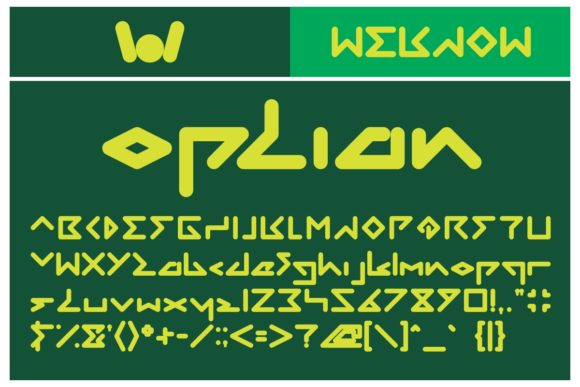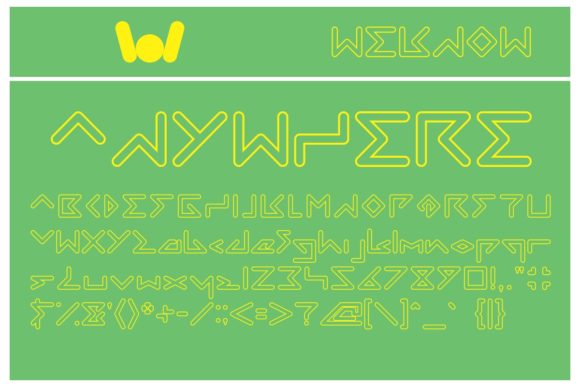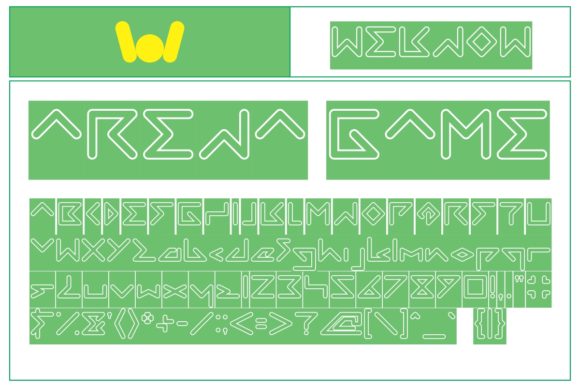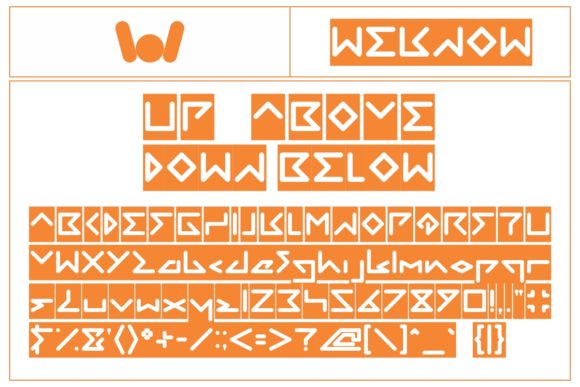
Introducing Direction Font: Elevate Your Designs with a Techno Display Font
In the world of design, fonts play a crucial role in conveying messages, expressing emotions, and creating visual identities. For designers, crafters, and social media enthusiasts, finding the perfect font can be a daunting task. However, if you’re looking for a techno display font that can take your designs to the next level, look no further than Direction Font. In this article, we’ll explore the features, benefits, and uses of Direction Font, and why it’s perfect for creating outstanding logos, eye-catching social media posts, and cute greeting cards.
What is Direction Font?
Direction Font is a techno display font designed to make a statement. Its sleek, modern design and futuristic feel make it perfect for designs that require a bold and edgy look. The font comes with a range of features that make it versatile and easy to use, including:
- Clean and minimalist design: Direction Font boasts a clean and minimalist design that ensures your message is conveyed clearly and effectively.
- Wide range of characters: The font includes a wide range of characters, symbols, and glyphs, making it perfect for creating logos, social media posts, and greeting cards.
- Easy to read: Despite its bold and edgy design, Direction Font is easy to read, making it perfect for designs that require a clear and concise message.
Perfect for Logos
Logos are an essential part of any brand’s identity, and Direction Font is perfect for creating outstanding logos. The font’s bold and edgy design makes it perfect for:
- Tech and startup logos: Direction Font is perfect for tech and startup logos that require a modern and futuristic look.
- Gaming logos: The font’s bold and edgy design makes it perfect for gaming logos that require a strong and dynamic look.
- Creative agency logos: Direction Font is perfect for creative agency logos that require a modern and innovative look.
Eye-Catching Social Media Posts
Social media is a crowded space, and creating eye-catching posts can be a challenge. Direction Font is perfect for creating social media posts that stand out from the crowd. The font’s bold and edgy design makes it perfect for:
- Promotional posts: Direction Font is perfect for promotional posts that require a bold and attention-grabbing design.
- Quotes and inspiration posts: The font’s clean and minimalist design makes it perfect for quotes and inspiration posts that require a clear and concise message.
- Event promotions: Direction Font is perfect for event promotions that require a modern and dynamic look.
Cute Greeting Cards
Greeting cards are a thoughtful way to show you care, and Direction Font is perfect for creating cute and stylish greeting cards. The font’s bold and edgy design makes it perfect for:
- Birthday cards: Direction Font is perfect for birthday cards that require a modern and celebratory look.
- Holiday cards: The font’s clean and minimalist design makes it perfect for holiday cards that require a clear and concise message.
- Get well cards: Direction Font is perfect for get well cards that require a thoughtful and stylish design.
In conclusion, Direction Font is a techno display font that is perfect for designers, crafters, and social media enthusiasts who want to create outstanding logos, eye-catching social media posts, and cute greeting cards. Its bold and edgy design, clean and minimalist look, and wide range of characters make it a versatile and easy-to-use font. Whether you’re a professional designer or a DIY enthusiast, Direction Font is a must-have font that can elevate your designs to the next level.